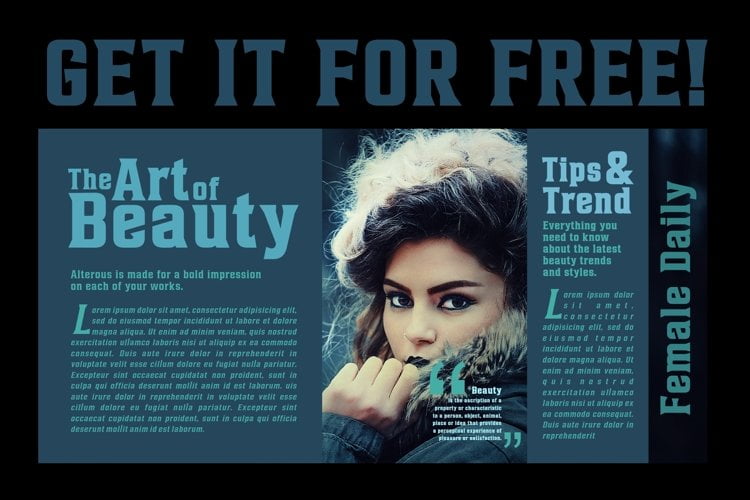
Alterous Display Font
Alterous Display Font - Web alterous display font, a powerful display font manufactured by seventype for making logos and setting. Web alterous by ahmad zulfikar ali.
Web alterous display font, a powerful display font manufactured by seventype for making logos and setting. Web alterous by ahmad zulfikar ali.
Web Alterous Display Font, A Powerful Display Font Manufactured By Seventype For Making Logos And Setting.
Web alterous by ahmad zulfikar ali.